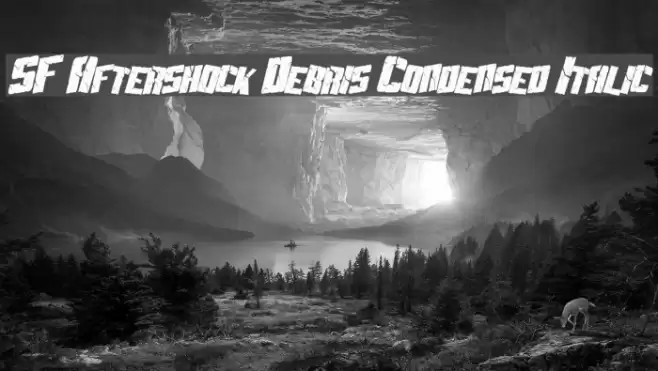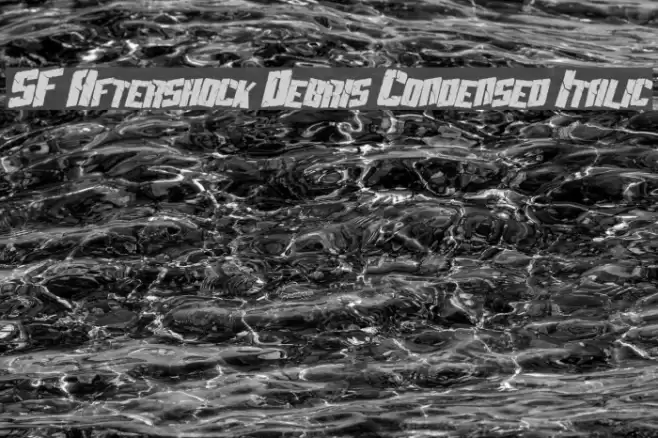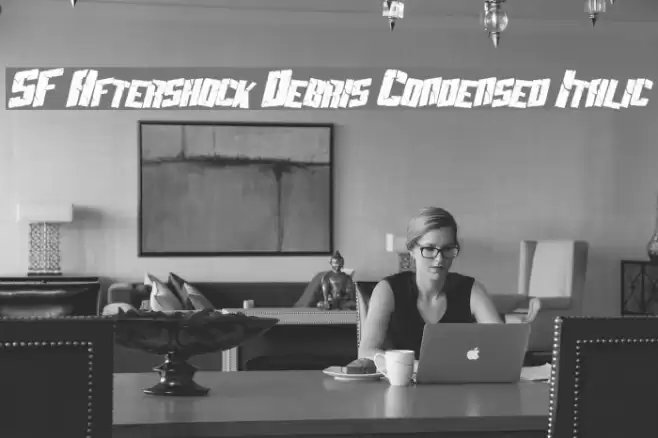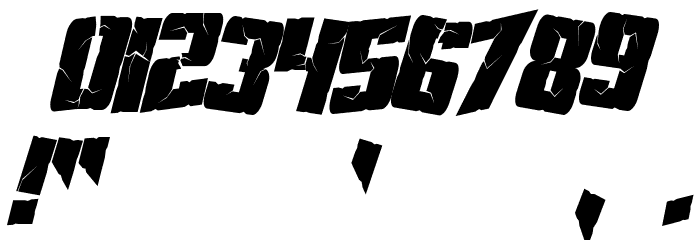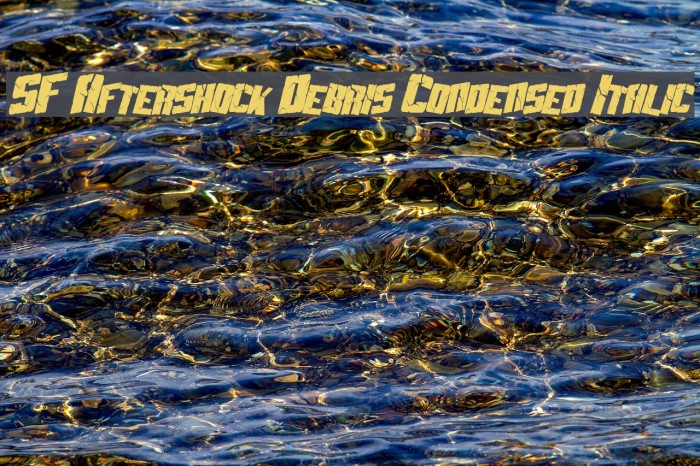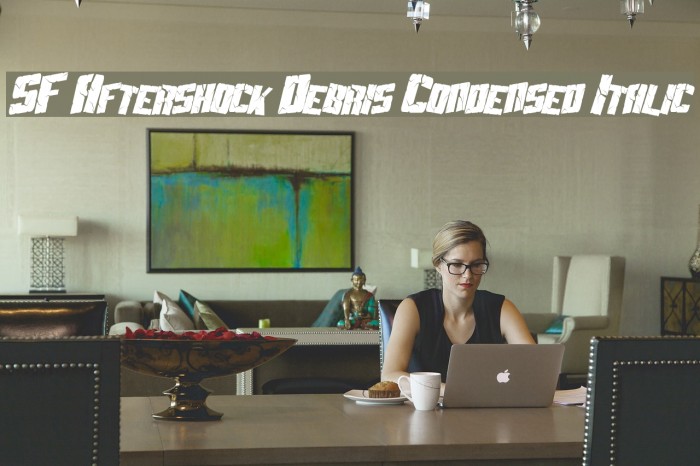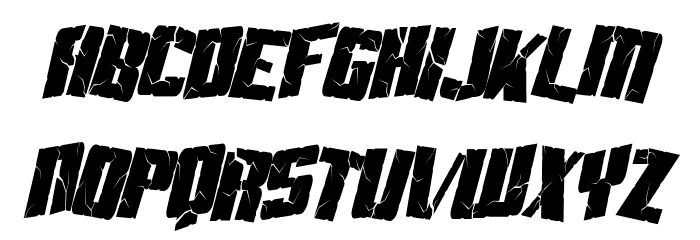
SF Aftershock Debris Condensed Italic Font
SF Aftershock Debris Condensed Italic Description
This font features a bold, distressed style with a shattered, fragmented appearance that gives it a dynamic and edgy feel. The characters are condensed and italicized, adding a sense of movement and urgency. The irregular edges and broken lines create a chaotic yet structured look, making it ideal for designs that require a strong visual impact. The uppercase and lowercase letters maintain consistency in their distressed design, while the numbers and special characters follow the same fragmented theme, ensuring a cohesive look across all text elements.
A bold, condensed, and italicized font with a shattered, distressed style from Crazy fonts.
- Proposed Projects: Ideal for projects requiring a dramatic and edgy look, such as movie posters, album covers, or video game titles.
- Overall Style: Modern, Edgy